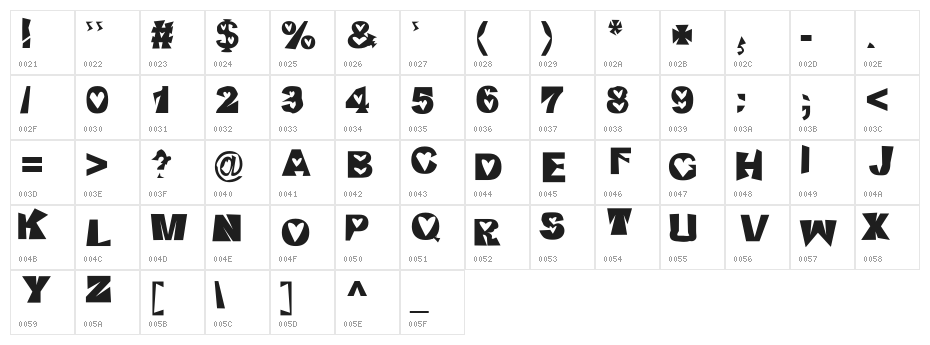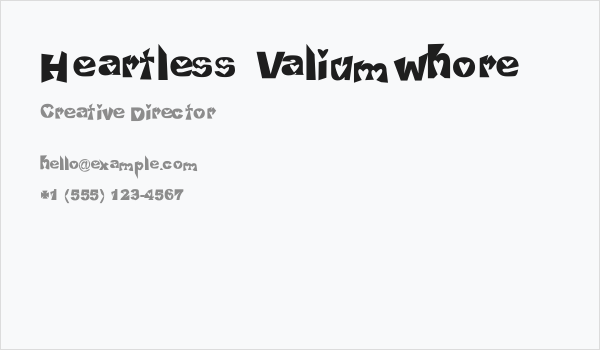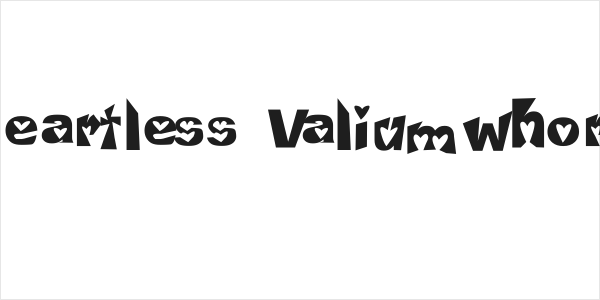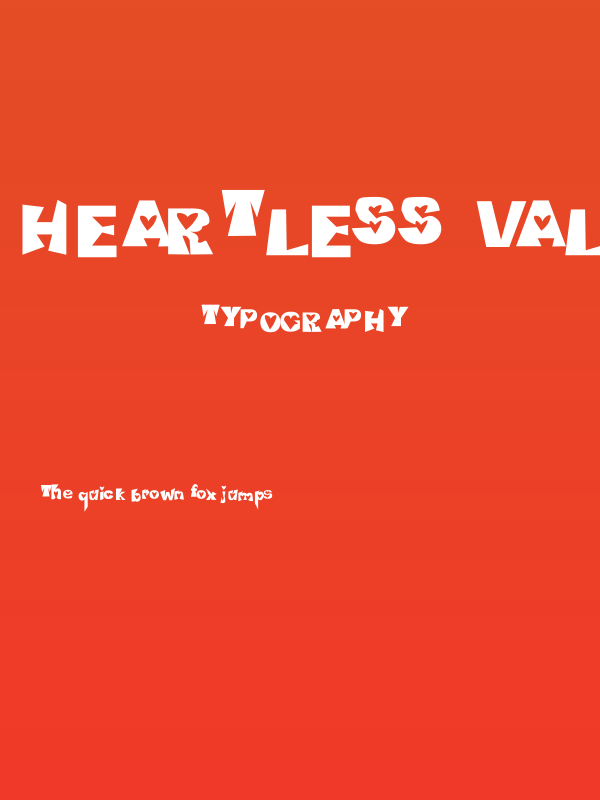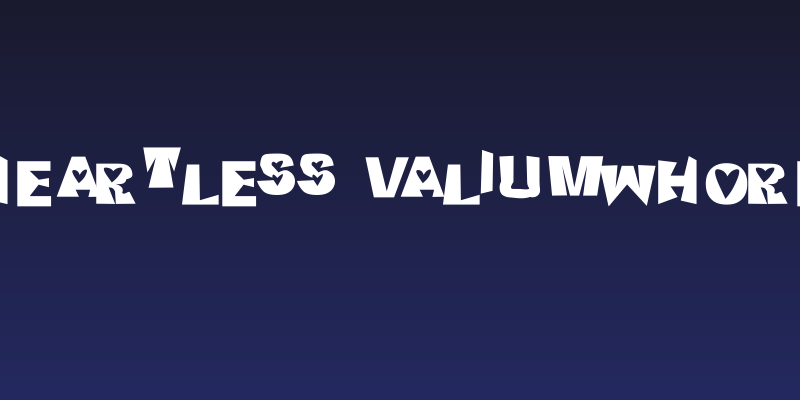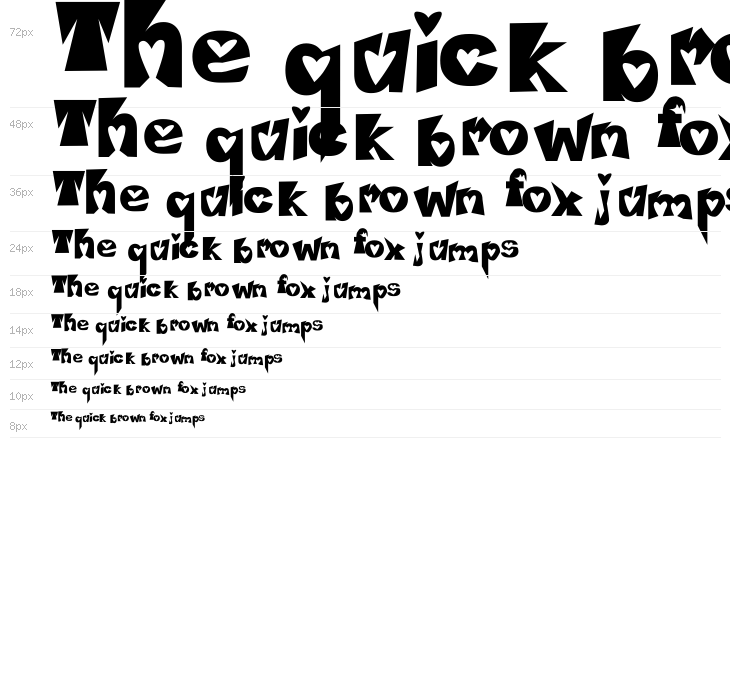
Heartless Valiumwhore Font
Heartless Valiumwhore Description
This font features a bold and playful design with a unique twist. Each character is crafted with a heart motif, giving it a whimsical and romantic feel. The letters are bold and chunky, making them stand out with a strong presence. The uppercase and lowercase letters maintain a consistent style, while the numbers and special characters incorporate the heart design seamlessly. This font is perfect for projects that require a fun and loving touch, such as Valentine's Day cards, wedding invitations, or playful branding.
| Overall Style | Playful, Romantic, Whimsical |
| Proposed Projects | Ideal for Valentine's Day cards, wedding invitations, playful branding, and romantic-themed designs. |